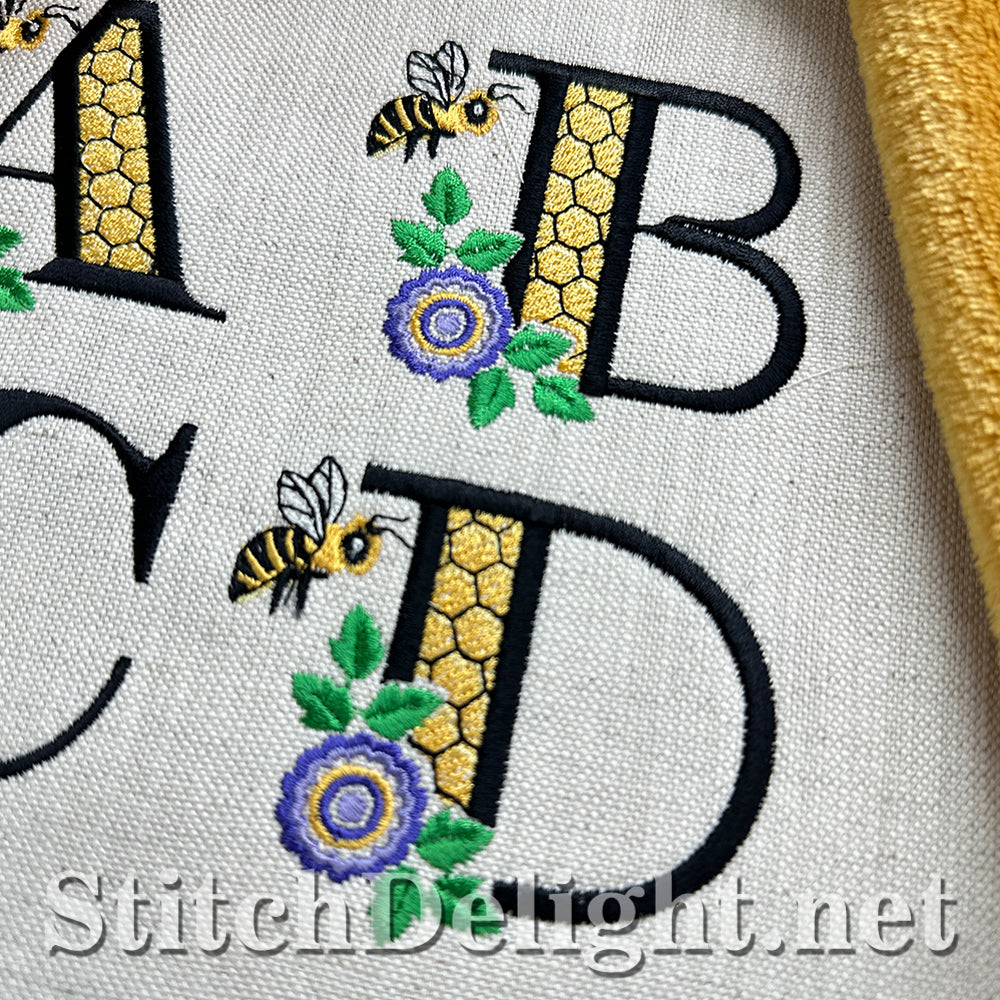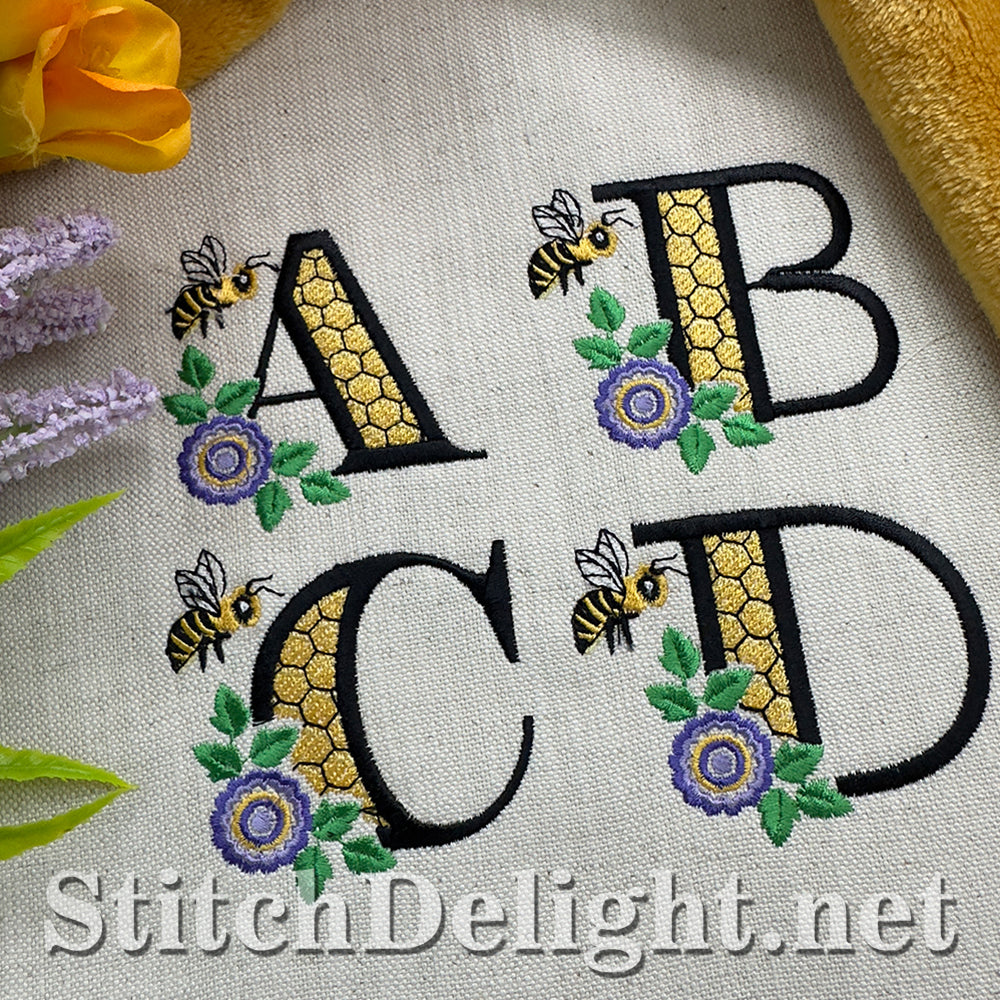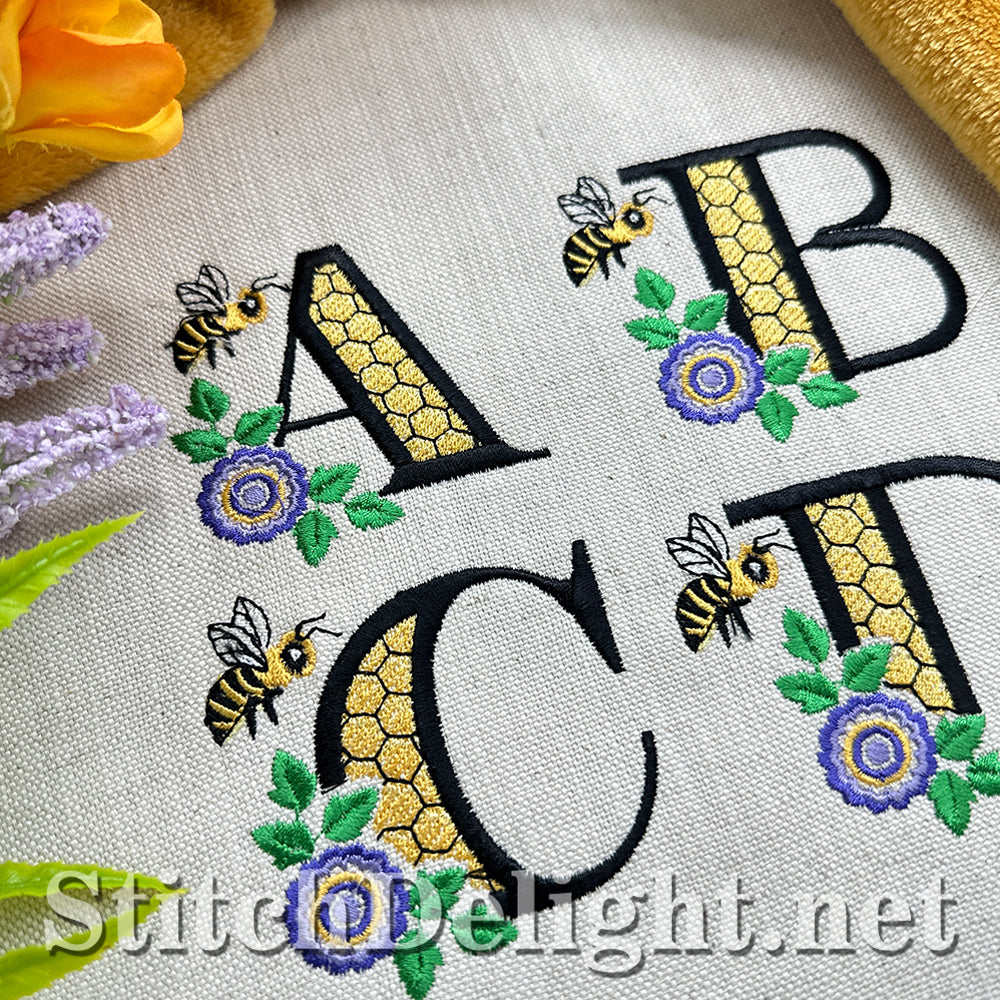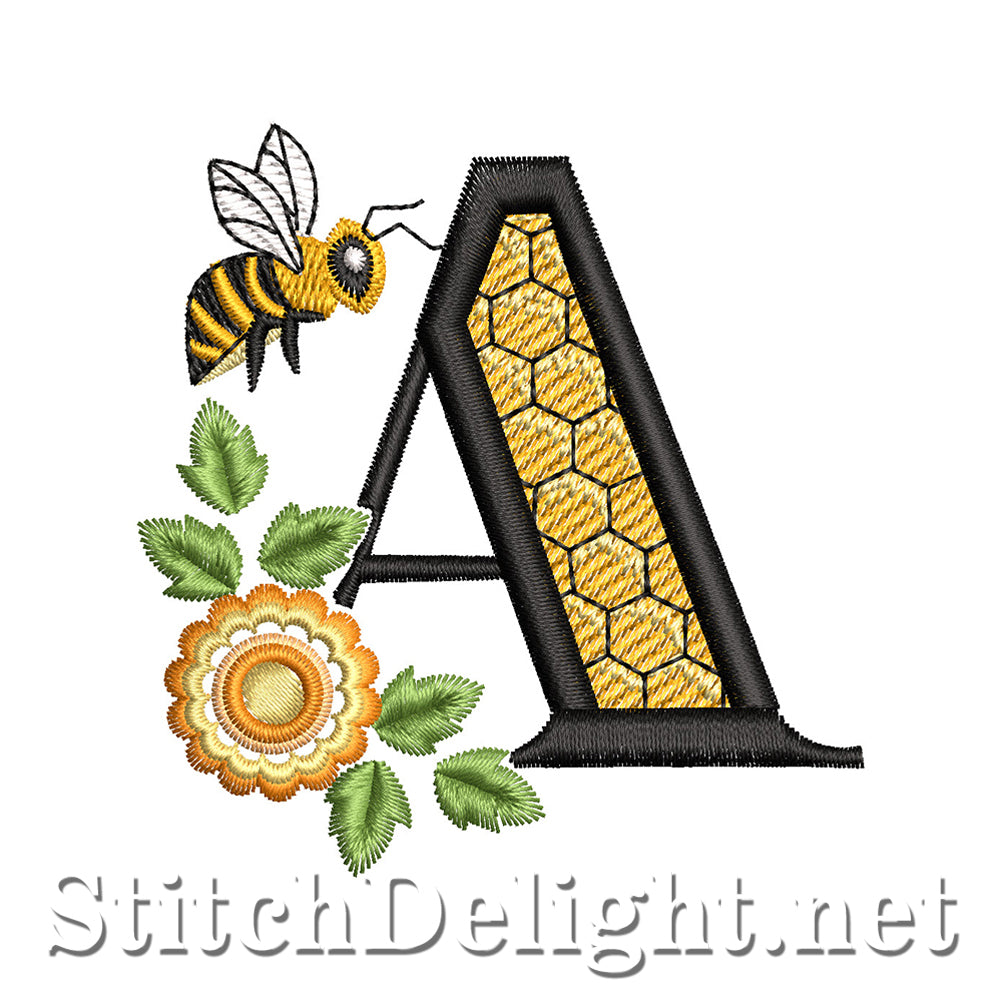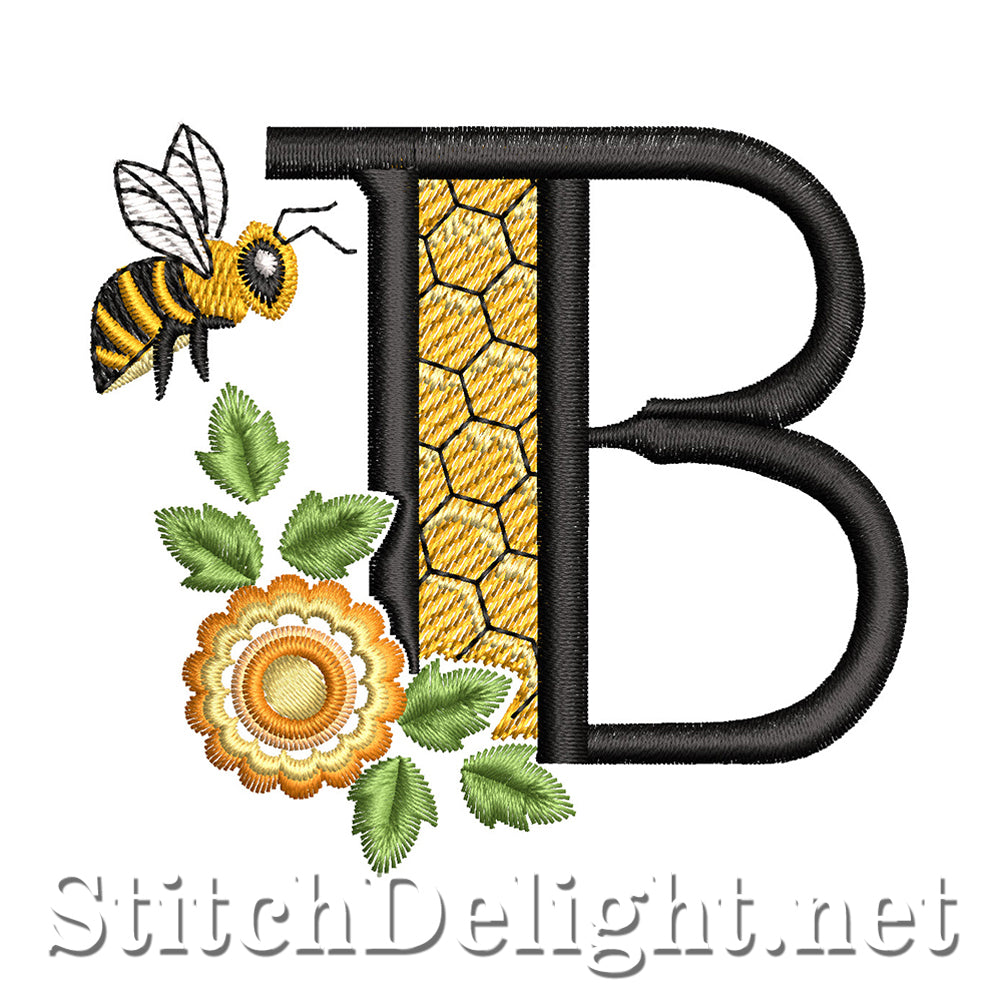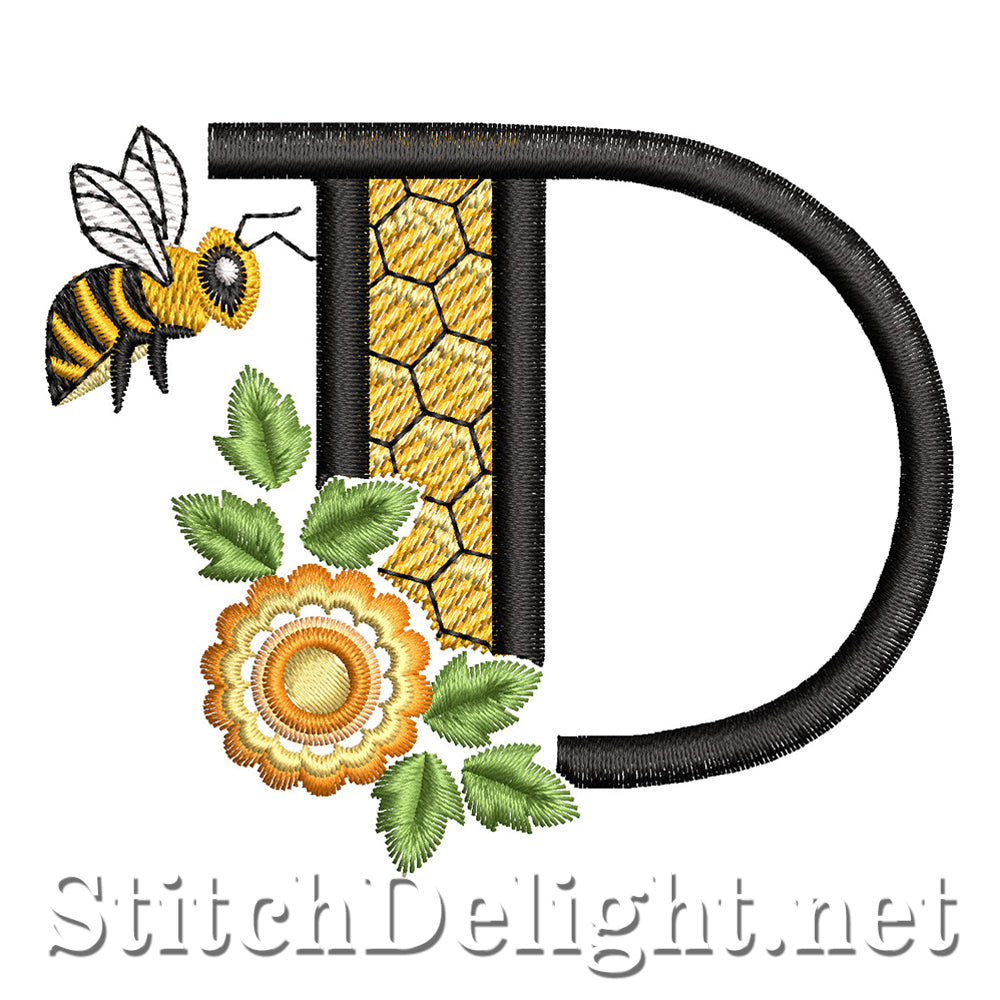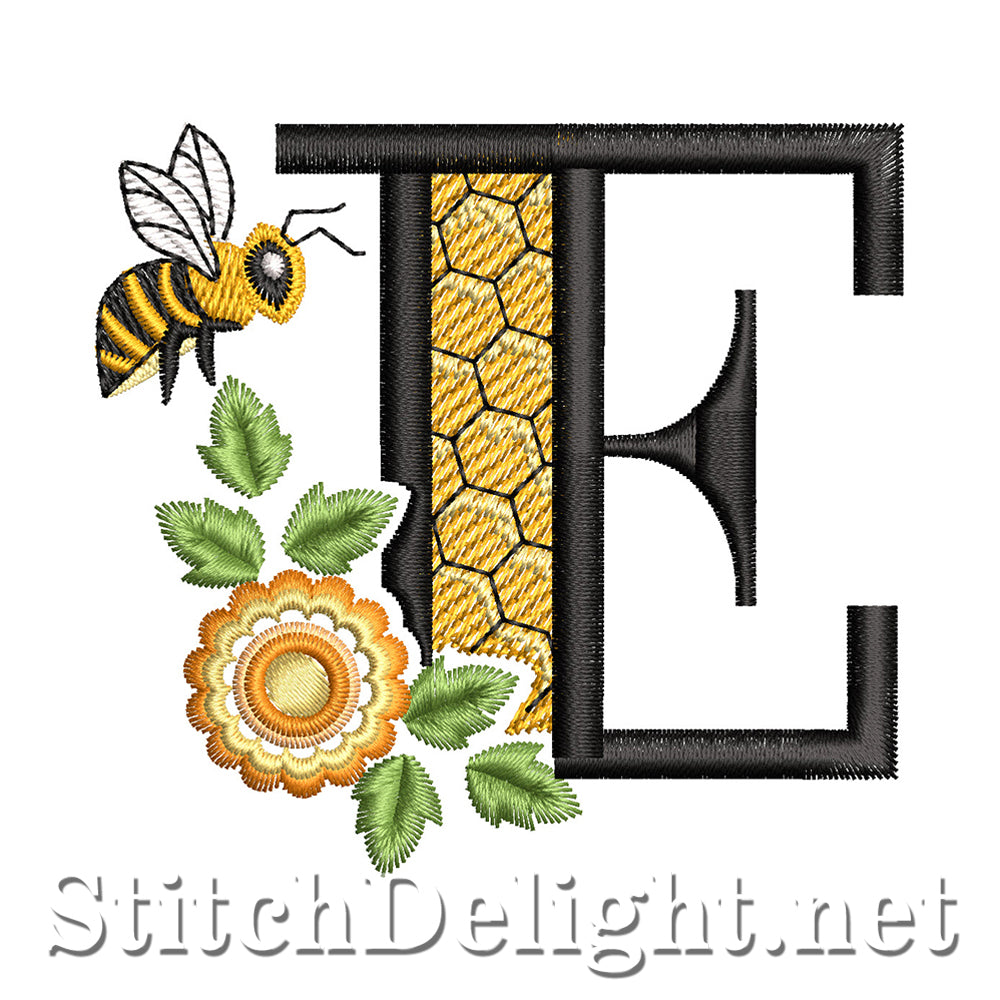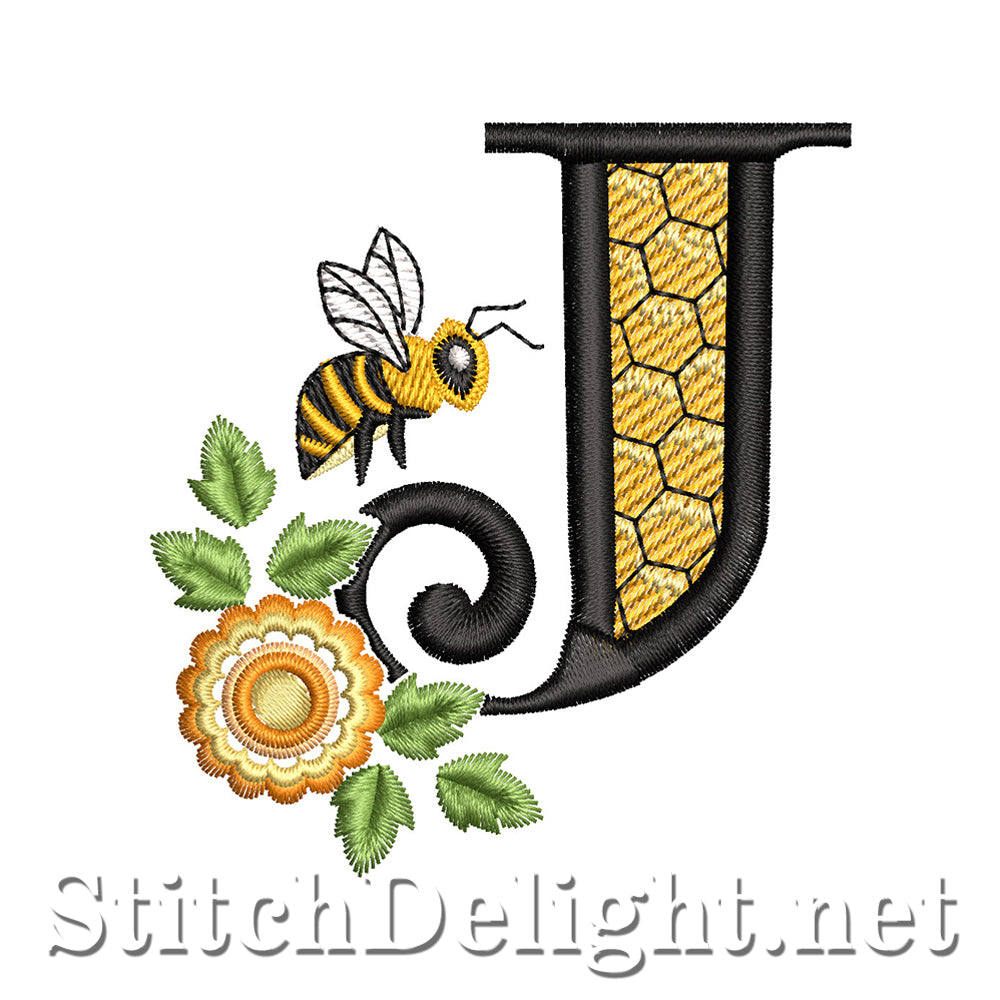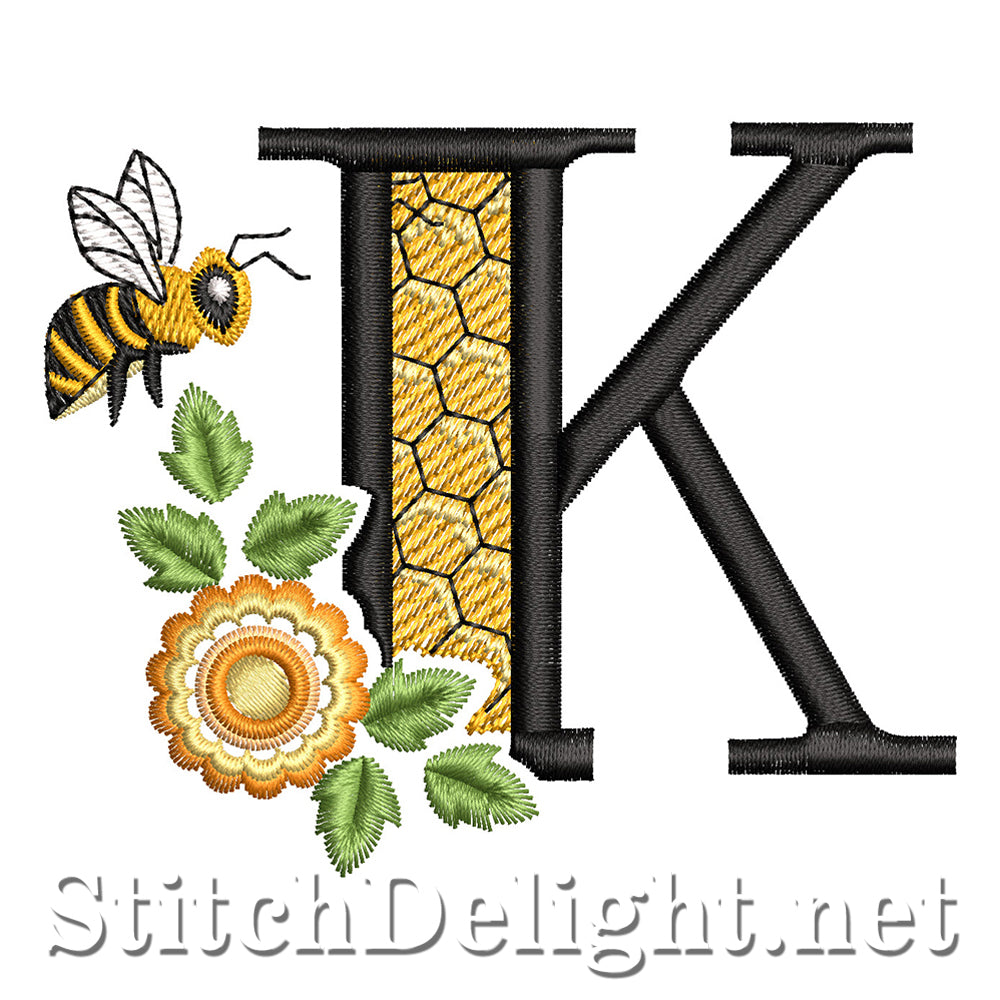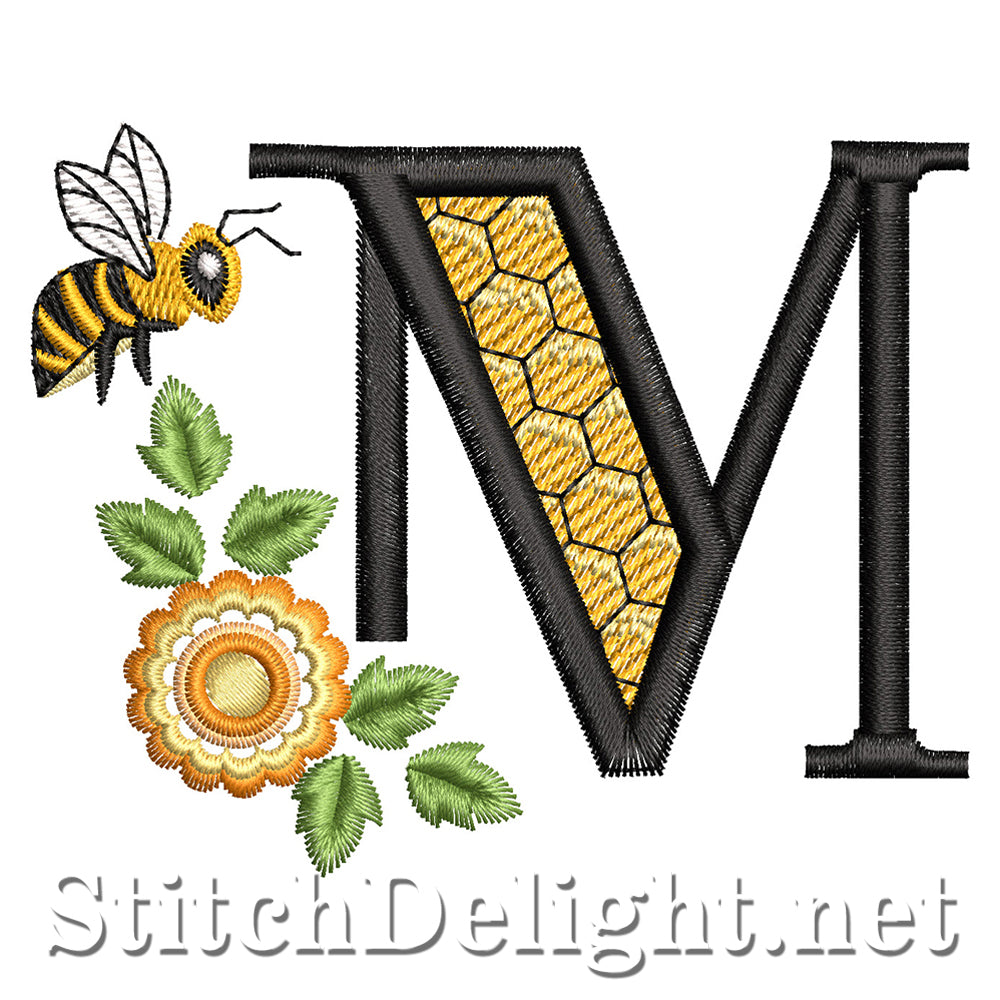
It's that time of the year again and the bees are hard at work creating something sweet! Bring spring into your home with this absolute stunning busy bee font.